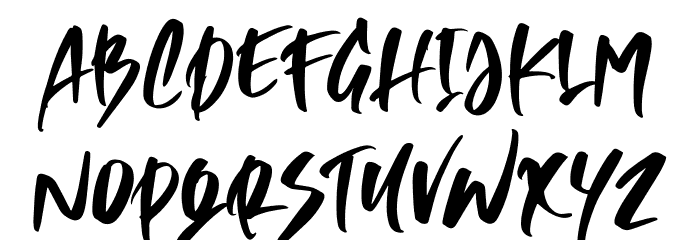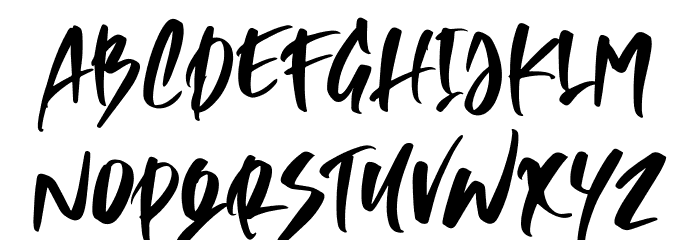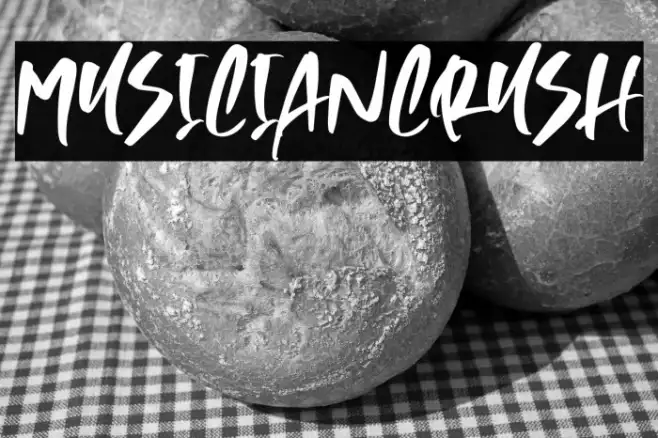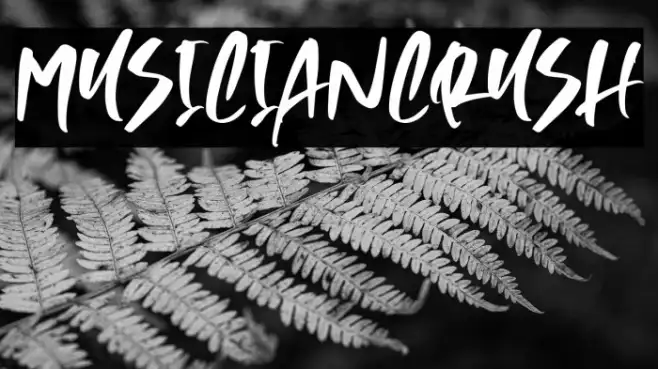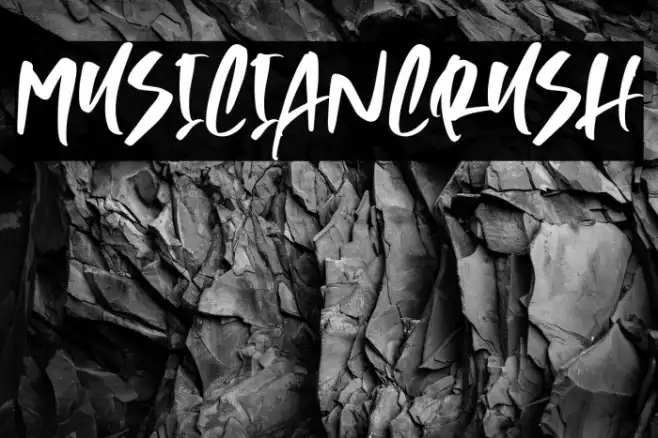
MusicianCrush Font
This font exudes a bold and expressive style, reminiscent of hand-painted brush strokes. The letters are dynamic and fluid, with varying thicknesses that add a sense of movement and energy. The uppercase and lowercase letters maintain a consistent style, with sharp angles and smooth curves that create a harmonious balance. The numbers and special characters follow the same artistic approach, making the font versatile for various design needs. Its unique and artistic flair makes it suitable for projects that require a personal touch or a creative edge.
A bold, expressive brush-style font with dynamic and fluid strokes.
- Proposed Projects: Ideal for music album covers, event posters, artistic branding, and creative social media graphics.
- Overall Style: Modern, Artistic